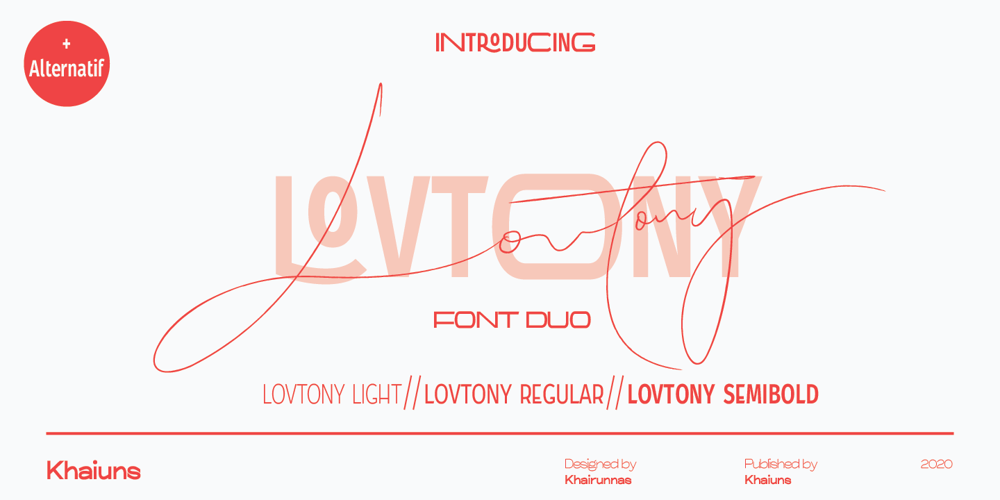
Lovtony
Lovtony font
Lovtony Font Family was designed by Khair Unnas and published by Khaiuns. Lovtony contains 4 styles and family package options. Indulge yourself in a luxurious typography pairing with Lovtony; a classic font duo consisting of an elegant Script & Sans Serif. Lovtony is also great for creating beautiful logos, posters, wedding invitations, blog posts, social media, and more!FEATURES: 7 Weights font All caps Stylistic Alternates & Ligatures Numerals & Punctuation Accented characters Multiple Languages Supported HOW TO ACCESS ALTERNATE CHARACTERSOpen glyphs panel: In Adobe Photoshop go to Window – glyphs In Adobe Illustrator go to Type – glyphs Please message me if you want your language included or If there are any features or glyph requests, feel free to send me a message, I would like to update it.I hope you have a blast using Lovtony Font Duo!Thanks for use this font ~ Khaiuns